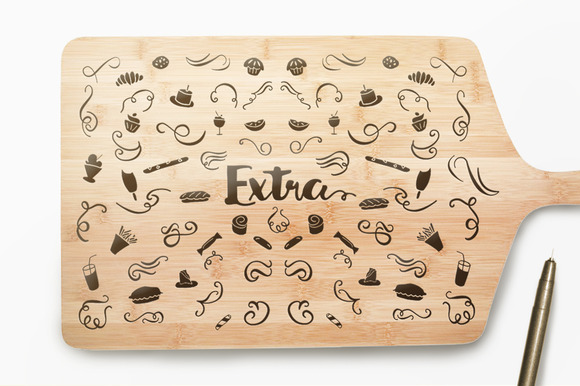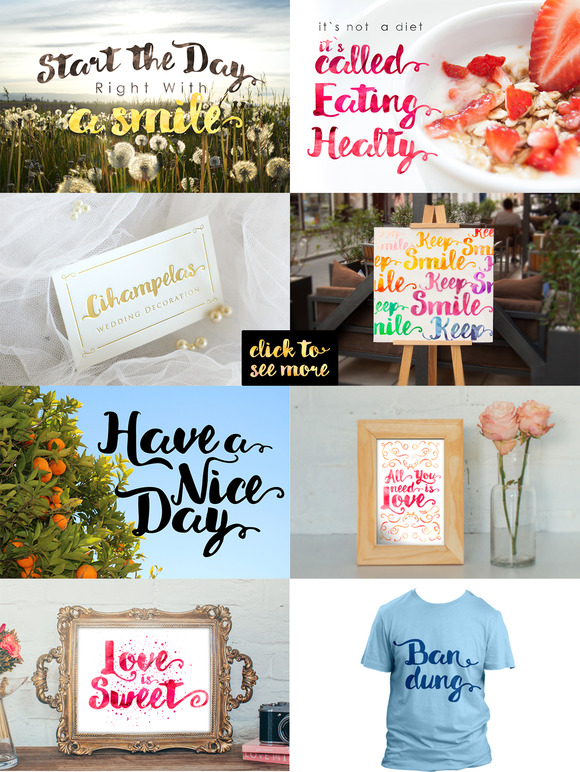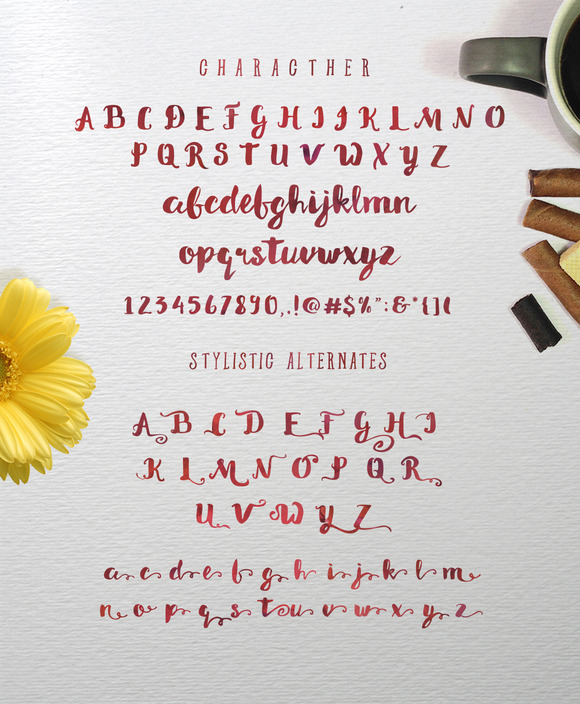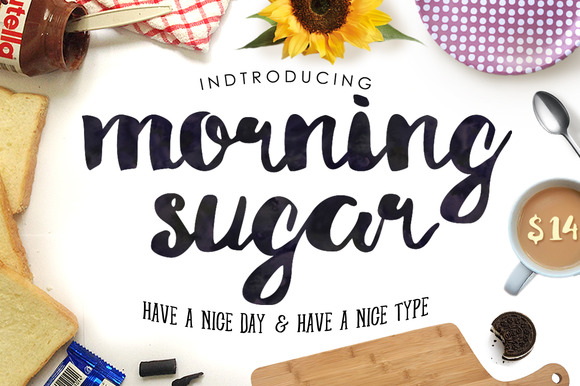
Morning Sugar Typeface + Extra
Morning Sugar typeface is a beautiful brush lettered font with Morning spirit ! , This typeface be equipped OpenType features with Stylistic Alternates, Contextual Alternates and swashes in some characters that allows you to mix and match pairs of letters to fit your design. To access the alternat glyphs, you need a program that supports OpenType features such as Adobe Illustrator CS , Adobe Indesign & CorelDraw X6-X7 🙂
Features
• Uppercase
• Lowercase
• Numerals & Punctuations (OpenType Standard)
• Accents (Multilingual characters)
• Stylistic Alternates
• Contextual Alternates (as an ender in almost every words)